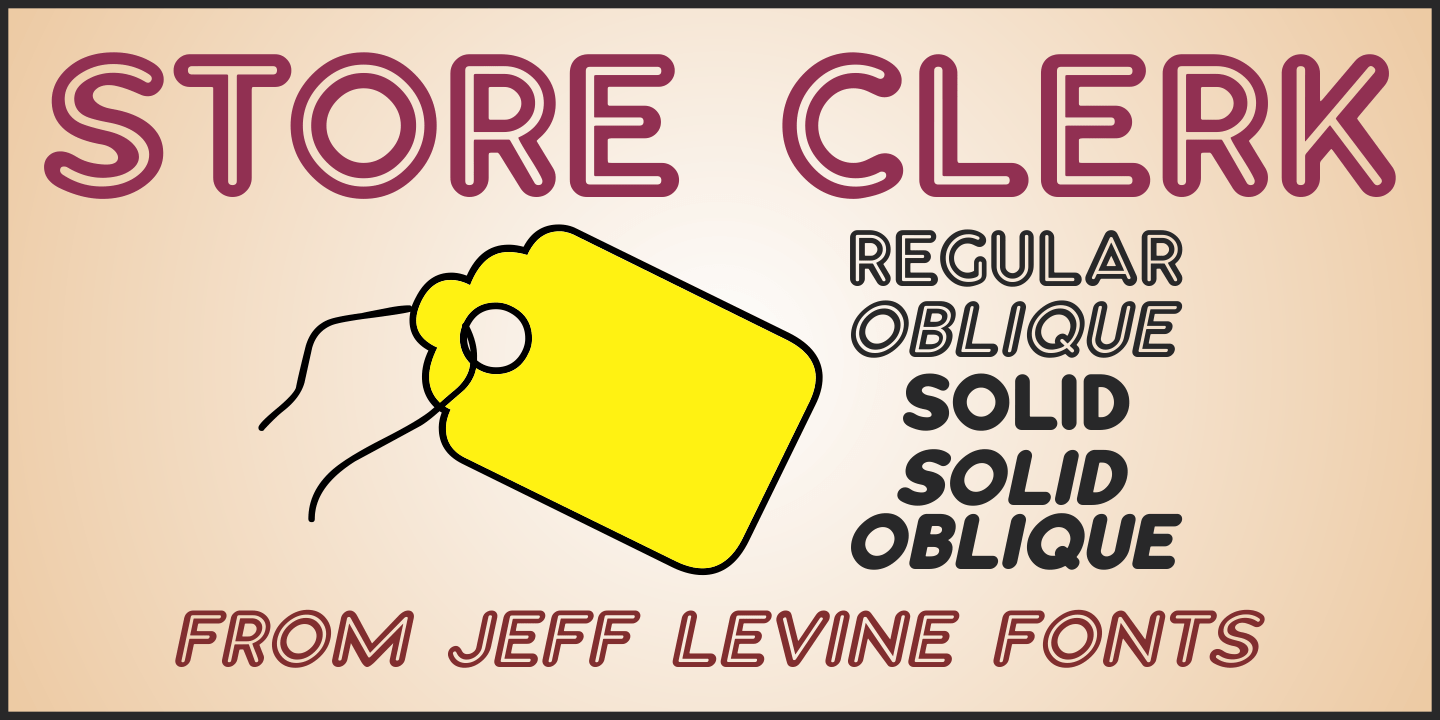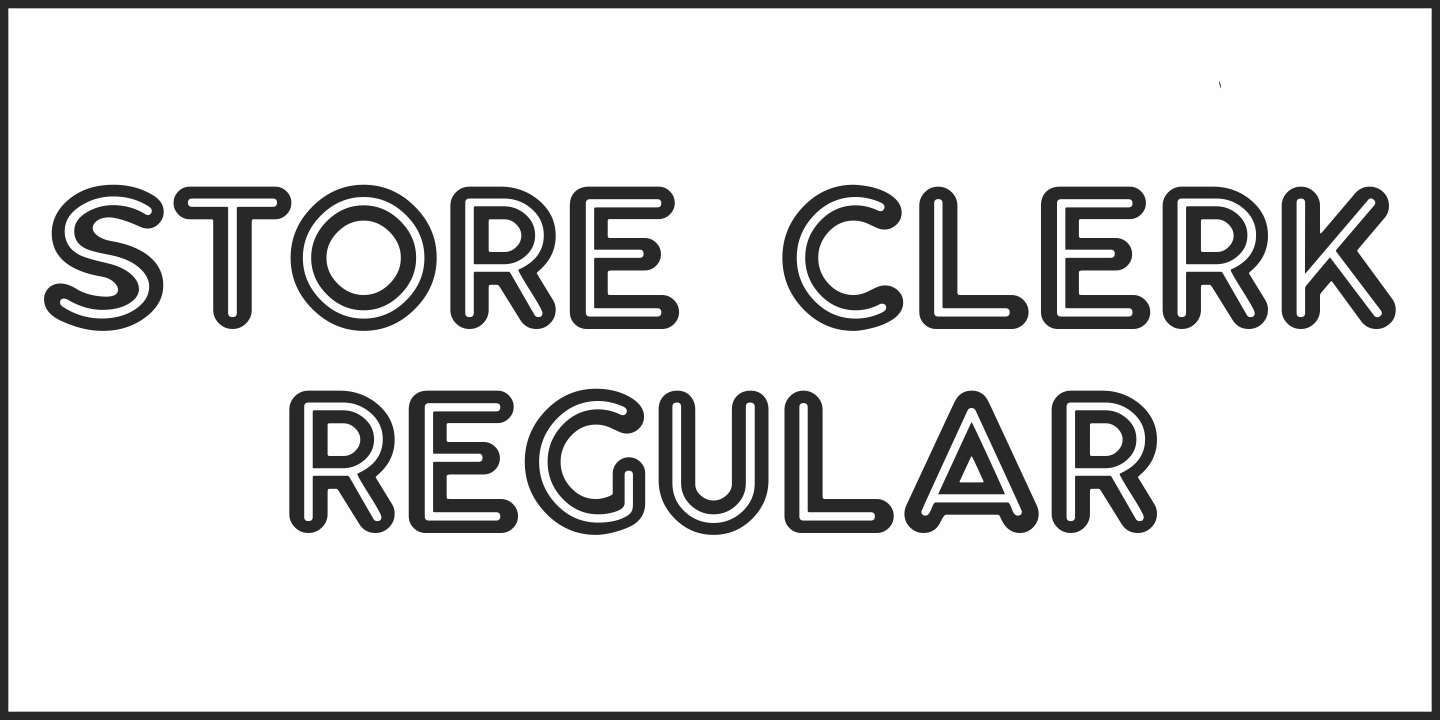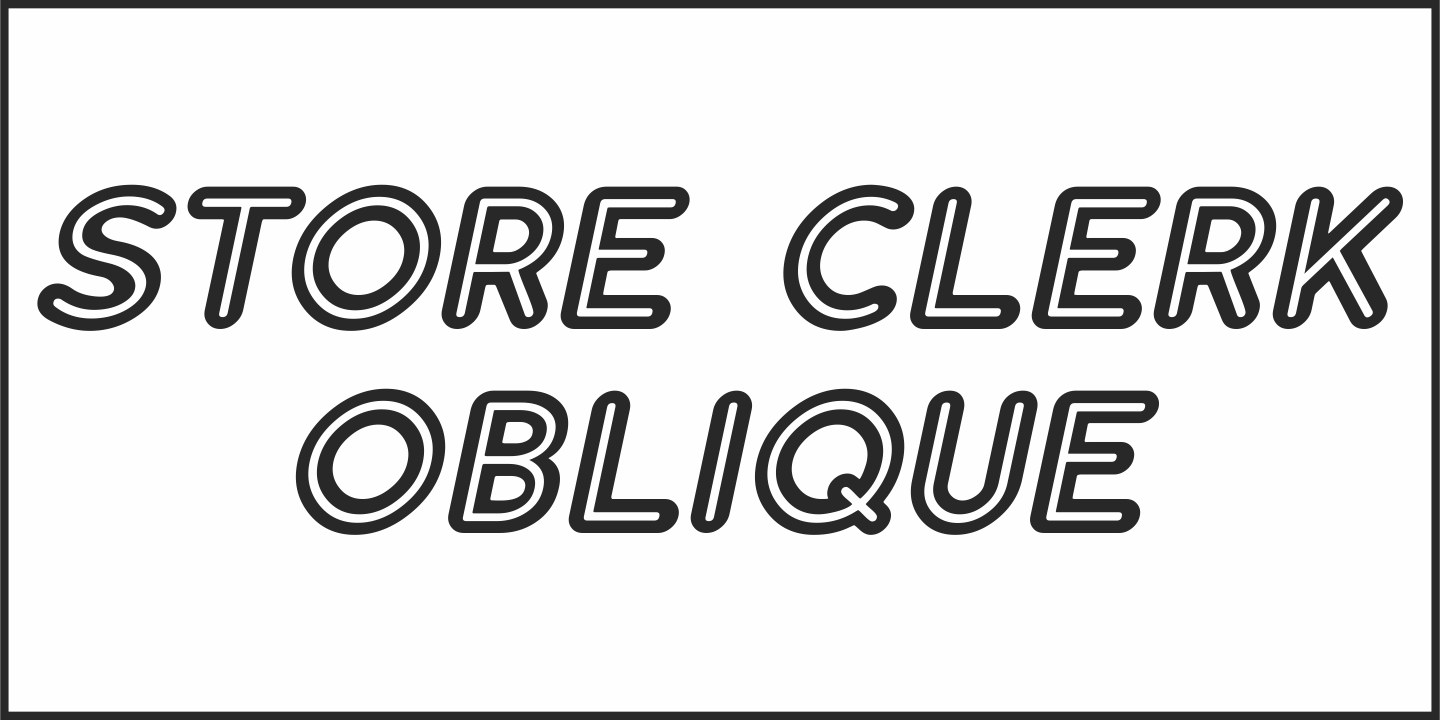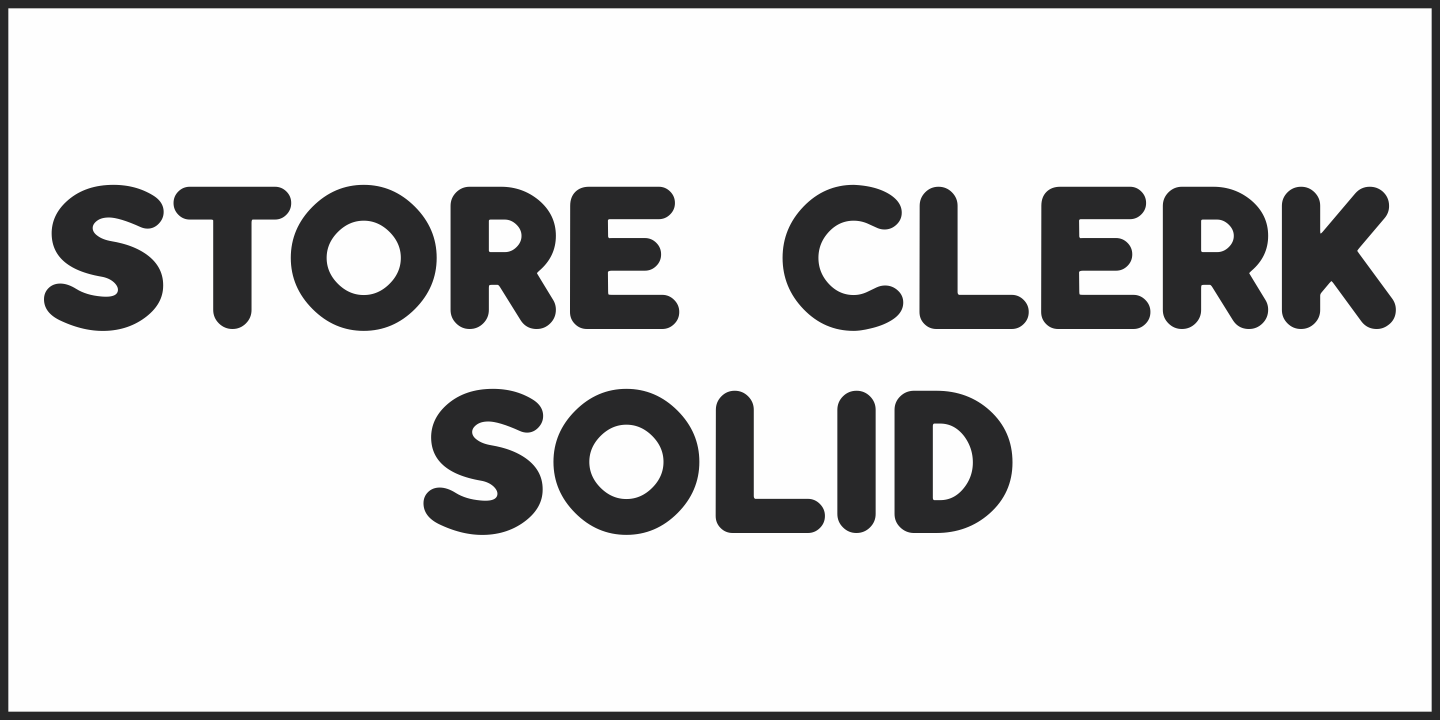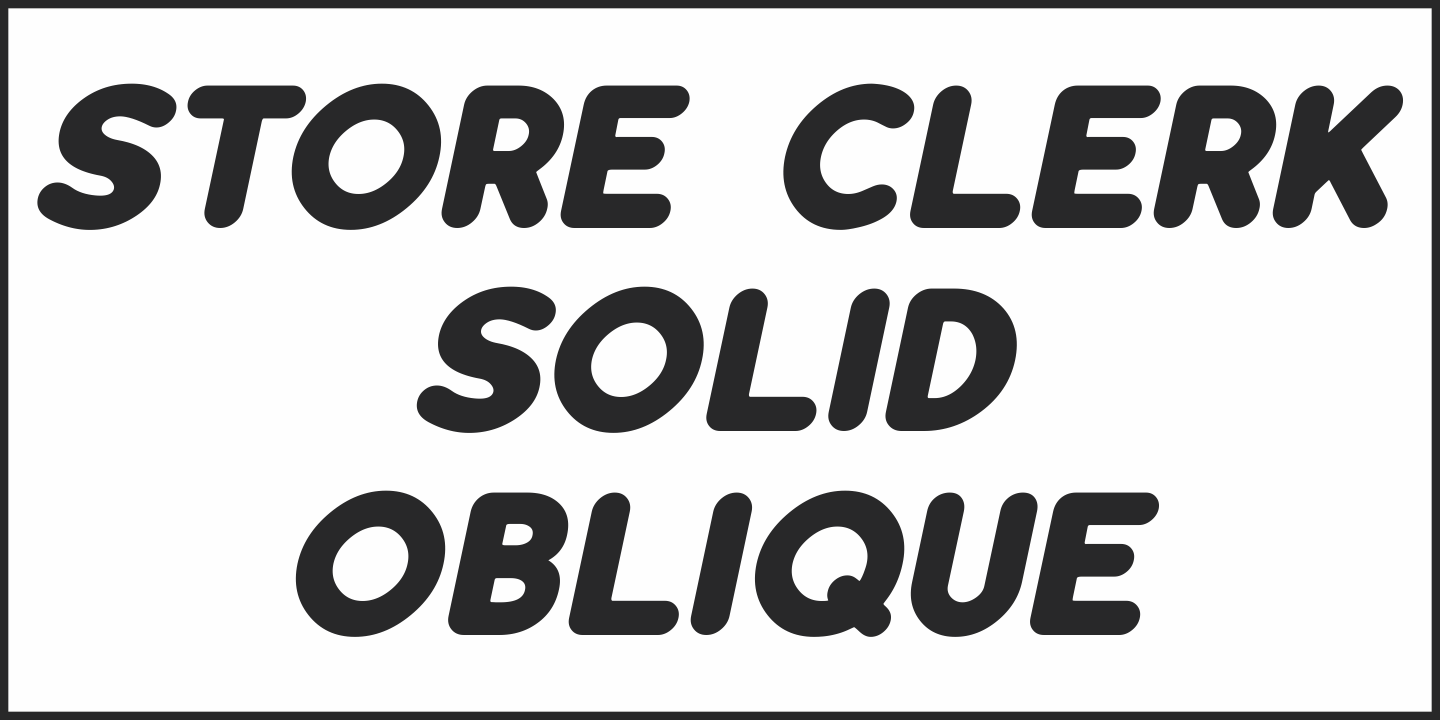
Store Clerk
The cover of the 1929 sheet music from the First National/Vitaphone picture 'The Girl from Woolworth's' had its title ('Someone') hand lettered.
This single word title was the model for Store Clerk JNL, which is available in both regular and oblique versions as well as solid and solid oblique versions (without an inline).
A bold, casual sans serif with rounded ends and an inline, Store Clerk JNL is perfectly suited for projects where a strong, yet playful title is necessary to grab the reader's attention.
For those old enough to remember, Woolworth's was a leading 'Five and Dime' store chain, especially in the days when a nickel or a dime actually could purchase something.